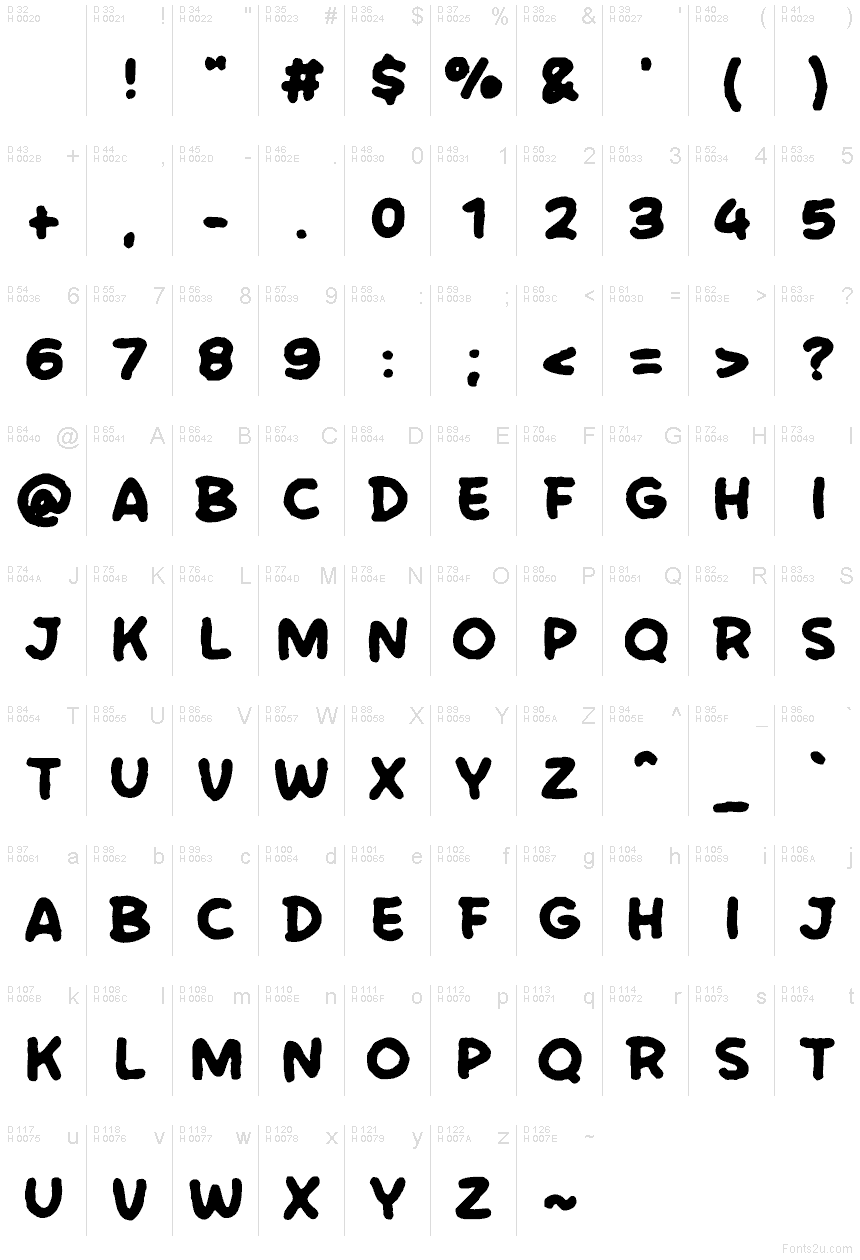
Slank Brush
Slank Brush font designed by Origin Type achieves a striking balance between playfulness and boldness. The comic typeface doesn’t try to be formal, but instead embraces its fun side with handcrafted appearance, organic texture, expressive strokes, casual vibe, and artistic flair. Its characters have a uniform width that creates good balance.
Draw attention with this free display font for clothing design, book covers for children’s books or comic books, posters and banners. Use in packaging applications across distinct categories such as food and beverage or electronics; also use on branding projects including logos where Slank Brush can be both primary or secondary font.